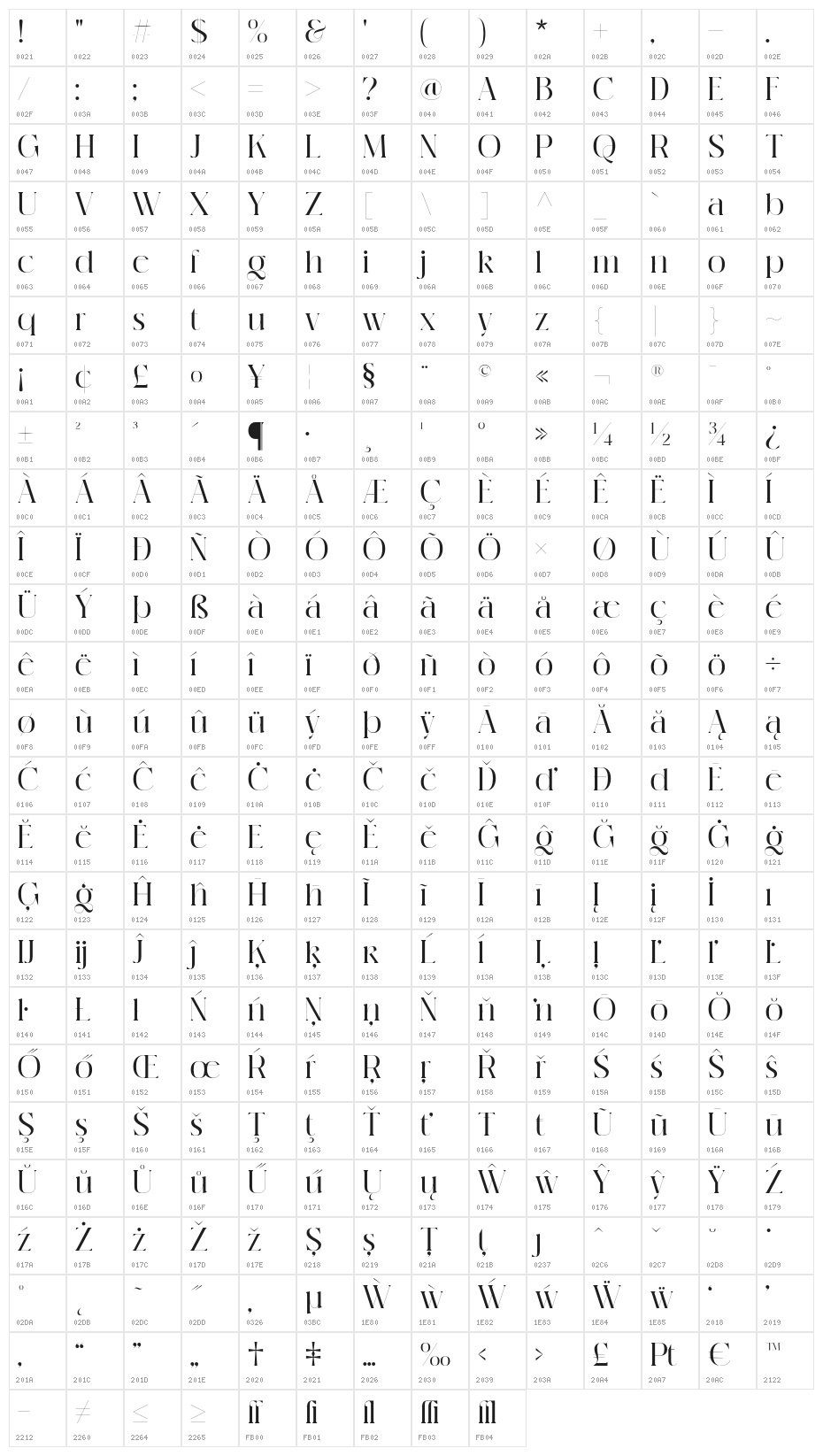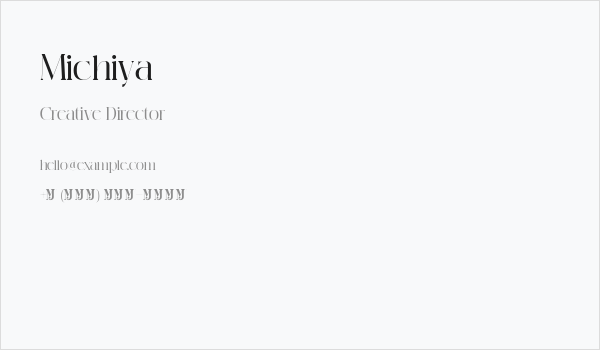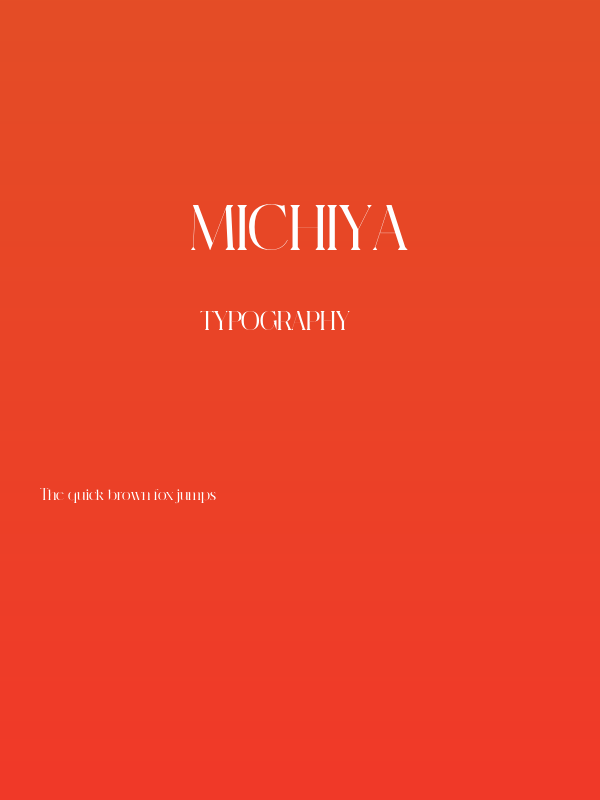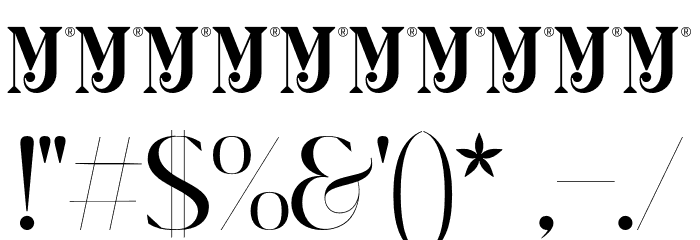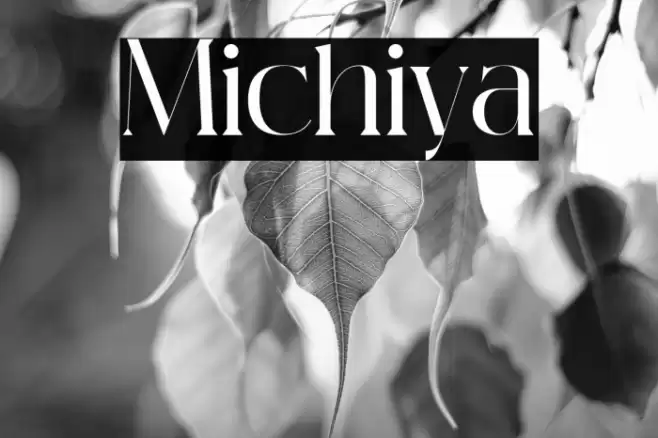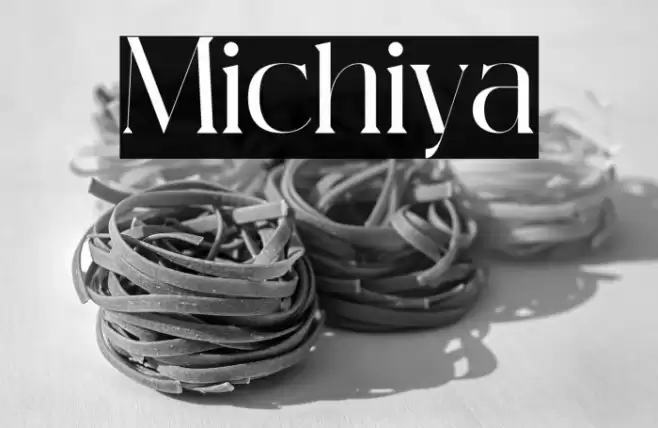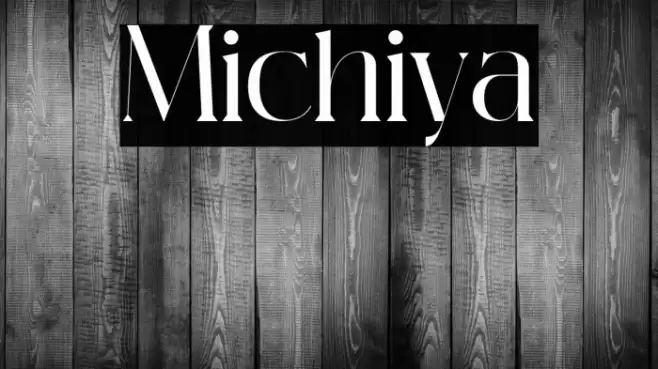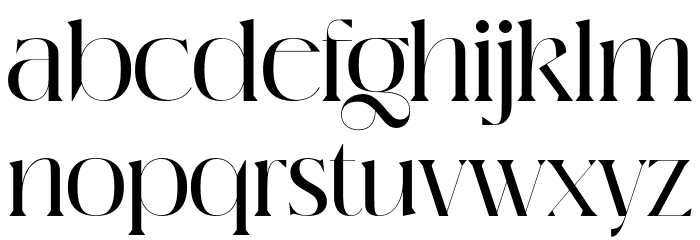
Michiya Font
This font features a sophisticated and elegant design with high contrast between thick and thin strokes, giving it a refined and stylish appearance. The uppercase letters are tall and slender, with sharp serifs that add a touch of classic elegance. The lowercase letters maintain a similar style, with some unique flourishes that enhance its decorative quality. The numerals and special characters are consistent with the overall aesthetic, providing a cohesive look. This font is ideal for projects that require a touch of luxury and sophistication.
| Overall Style | Classic |
| Use Case | Logos, Headlines, Invitations |
| Proposed Projects | Ideal for luxury branding, wedding invitations, high-end product packaging, and editorial design. |